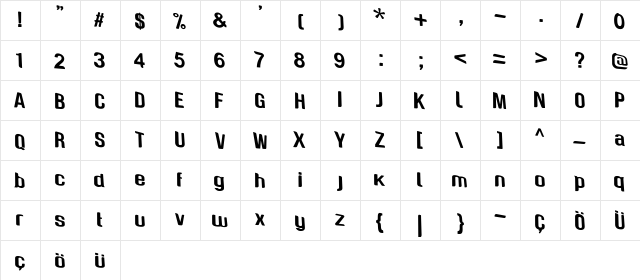
Genghis Khan Med Perspective Regular
| Designer | Mahir Huseynov |
Design Context for Genghis Khan Med Perspective Typeface
Genghis Khan Med Perspective offers clean, dependable letterforms without strong stylistic allegiance, making it a practical choice for designers who need flexibility.